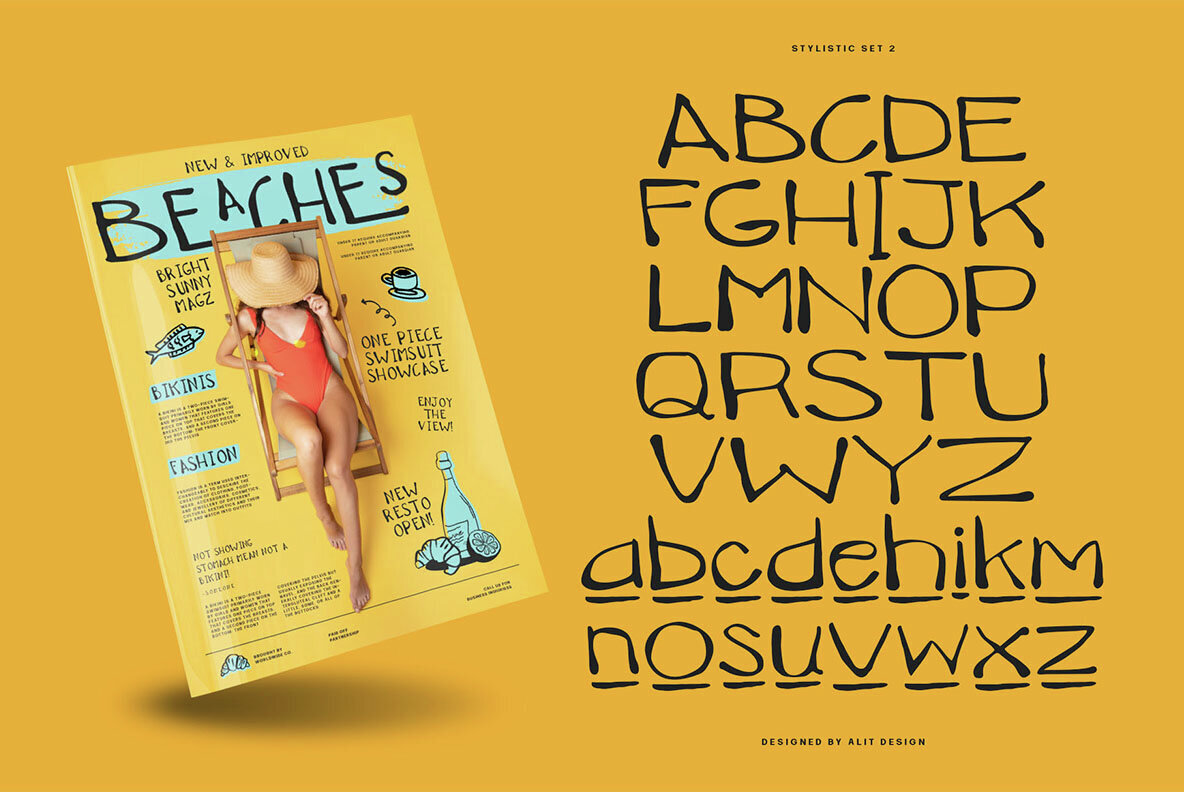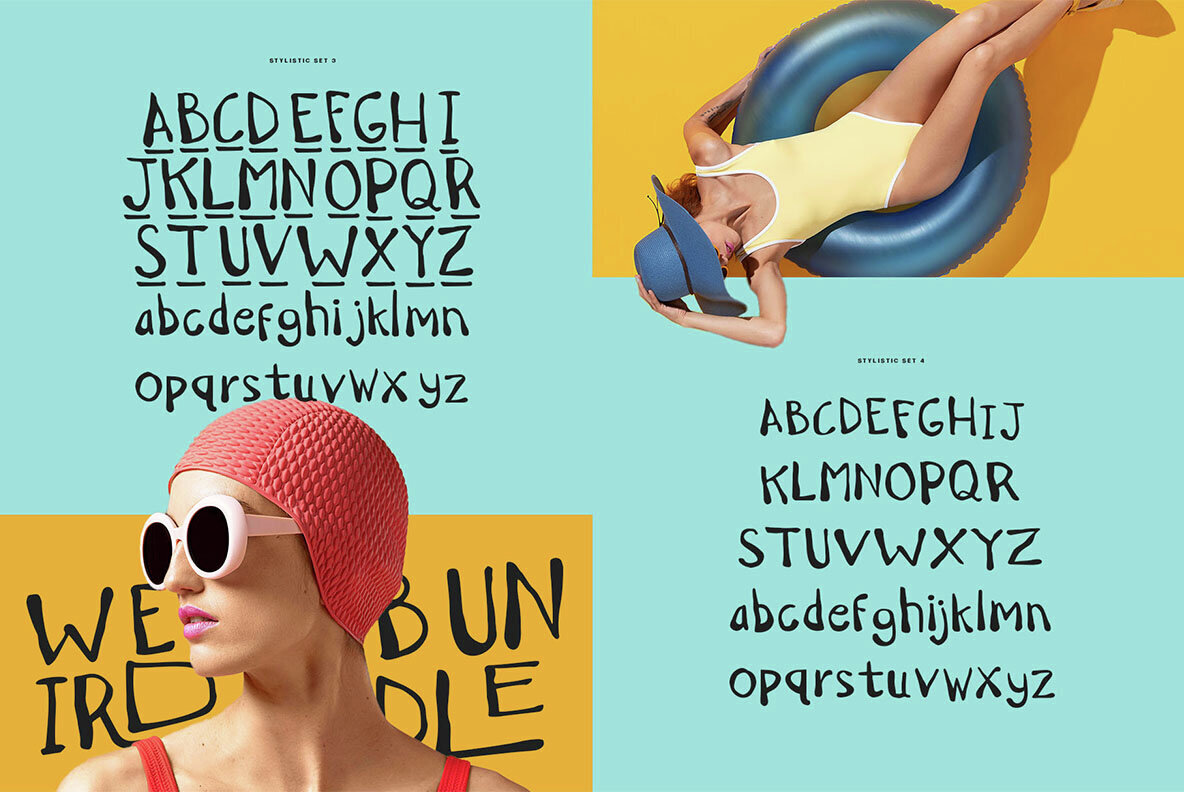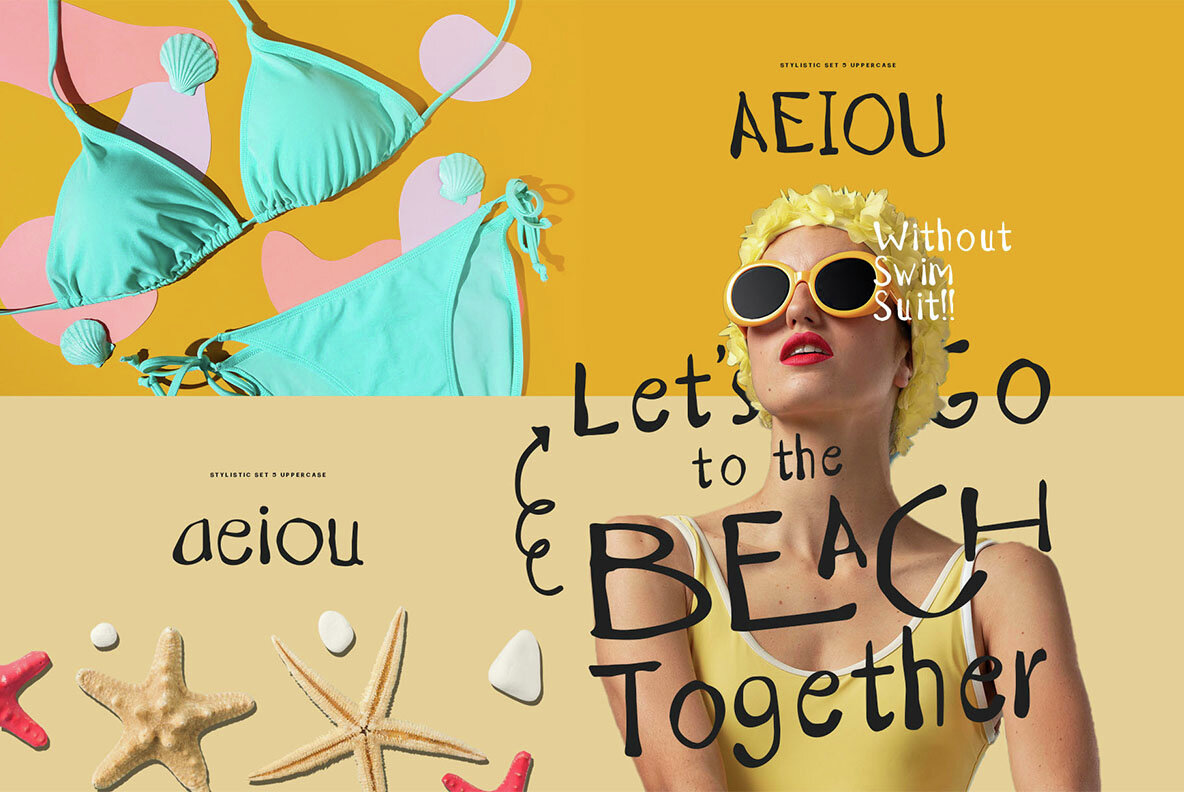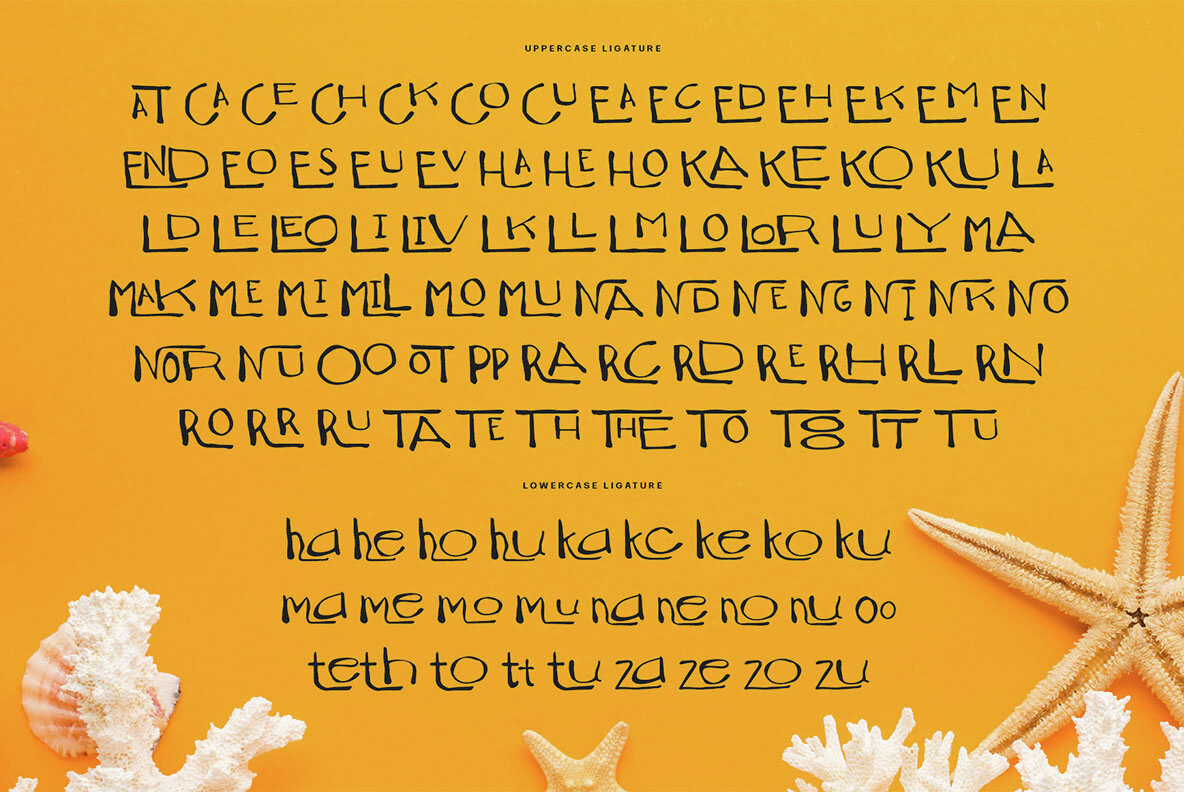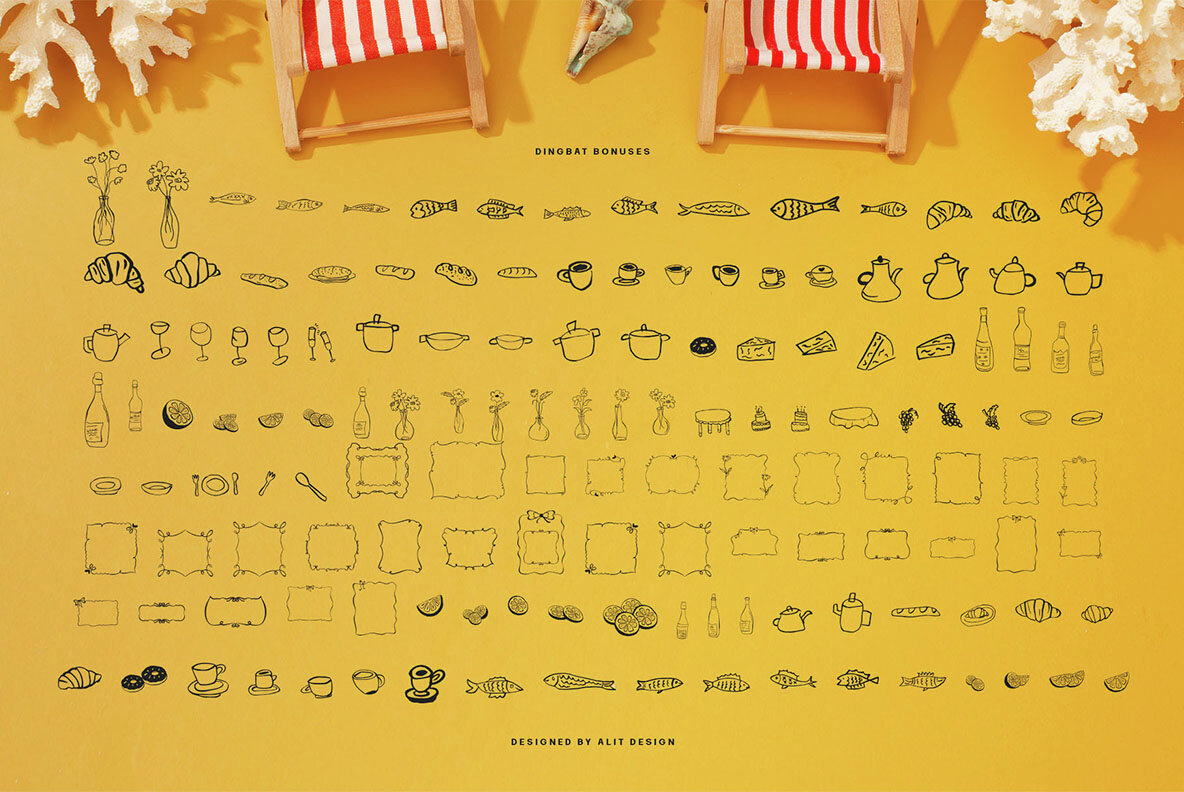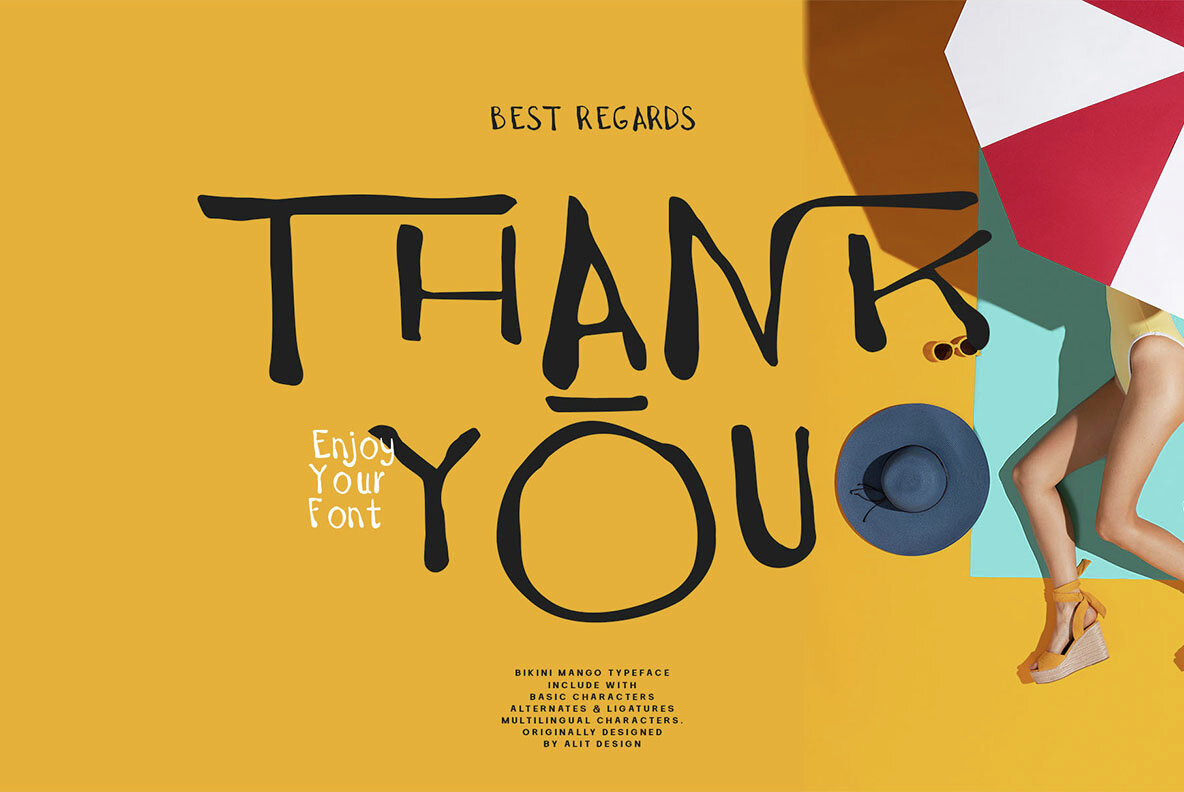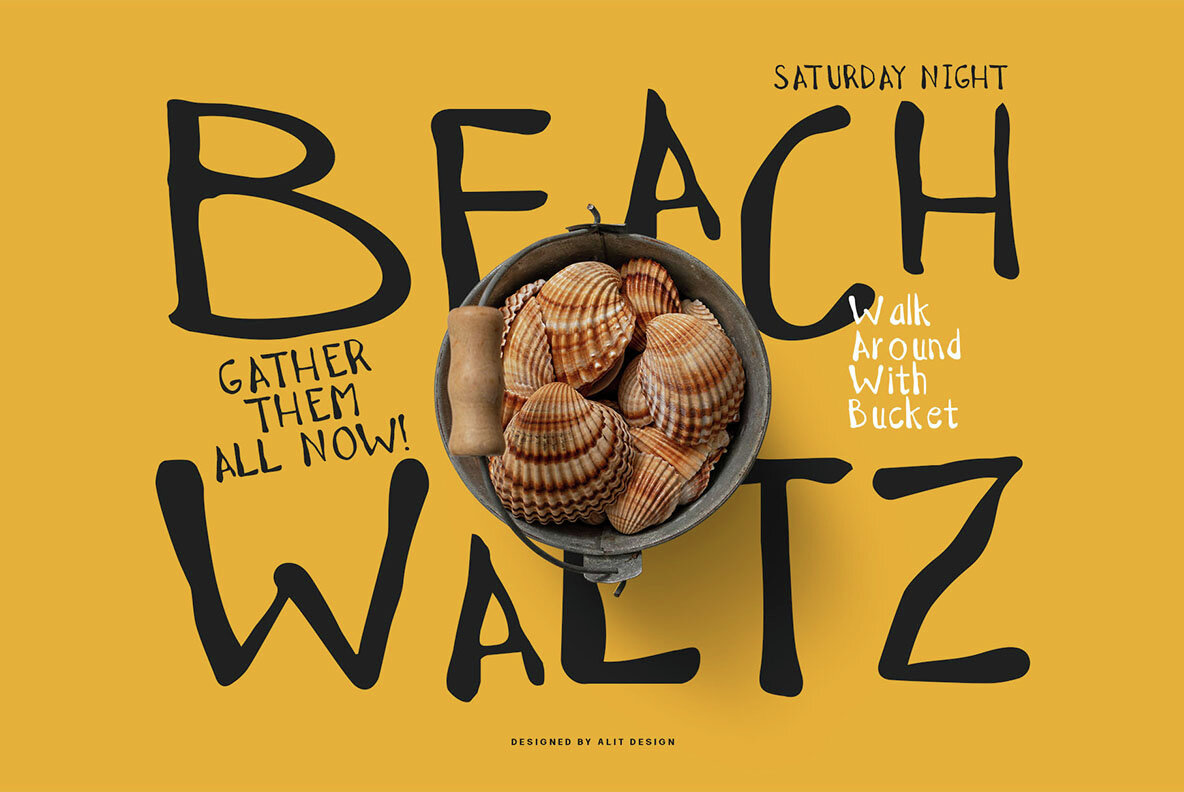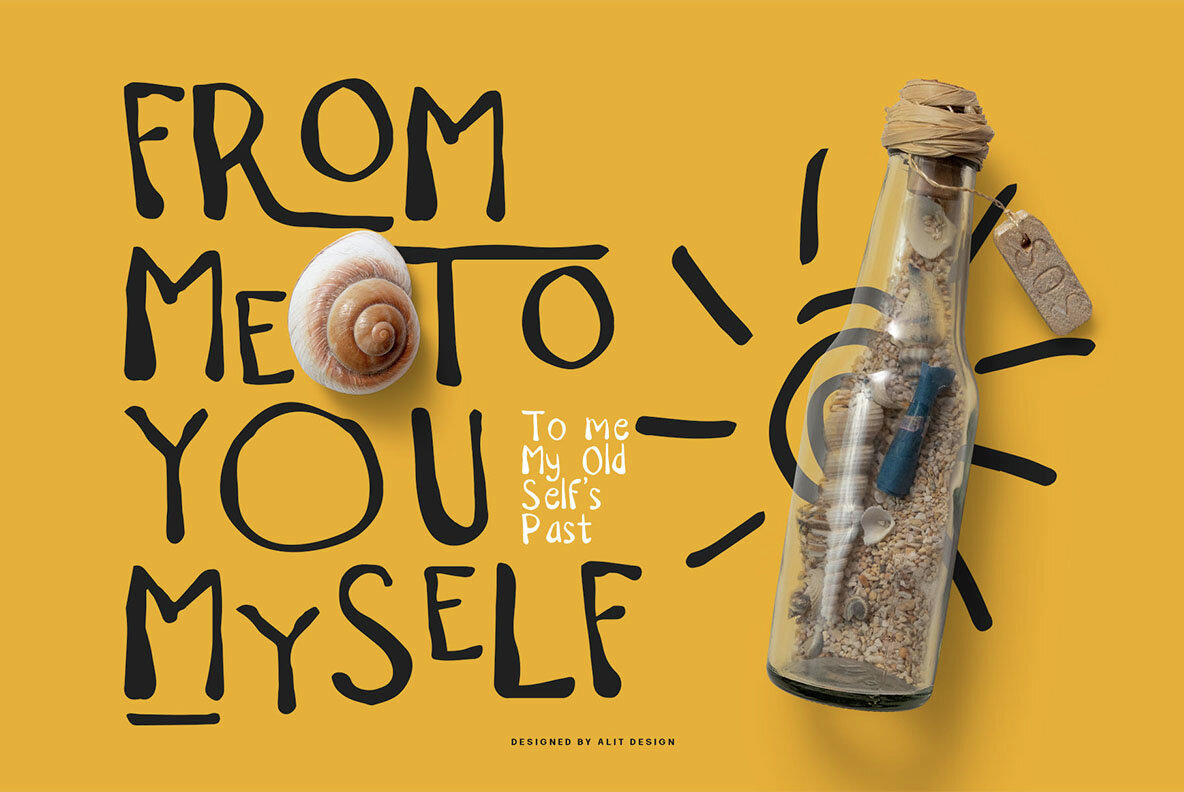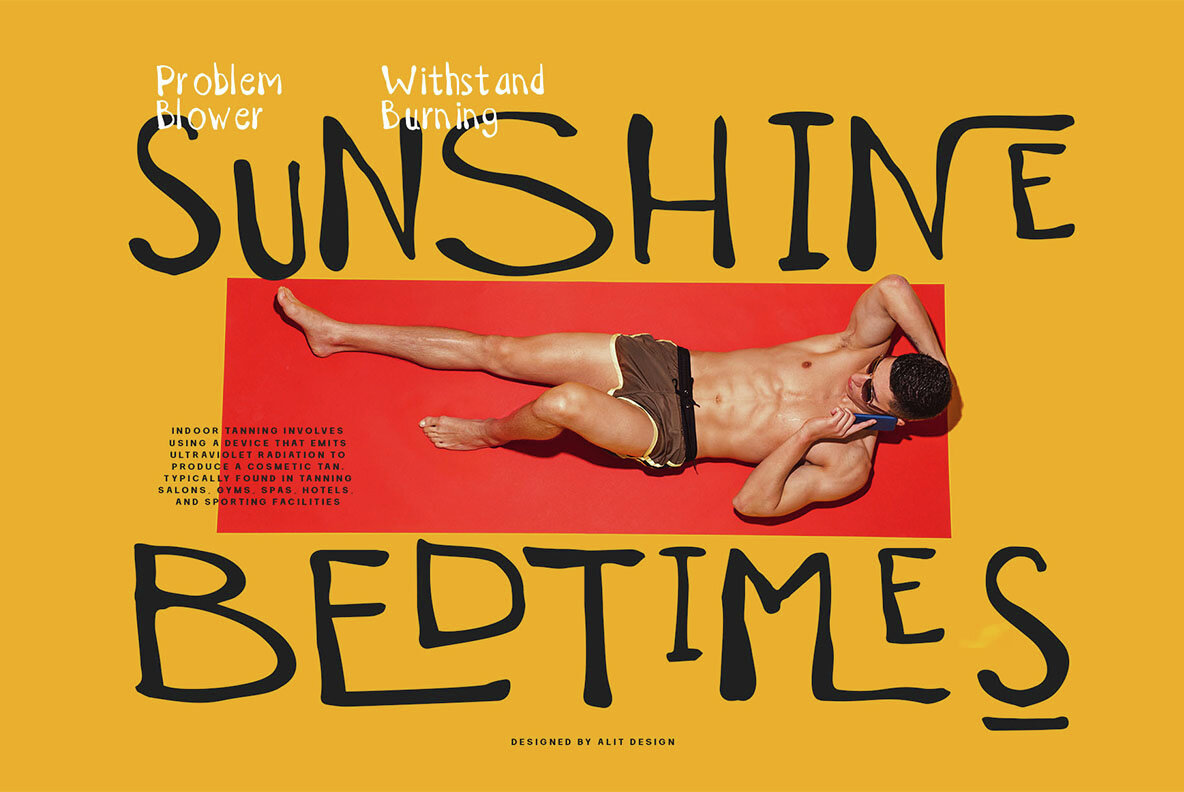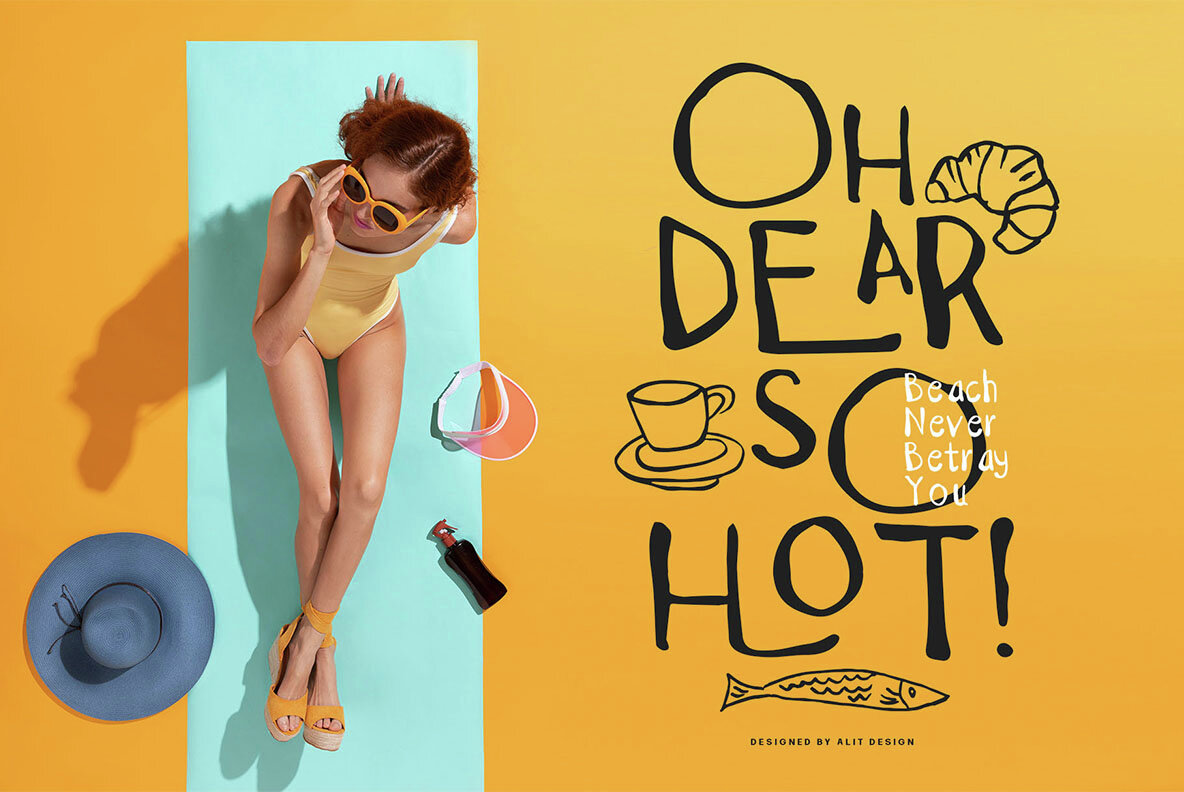
Bikini Mango Font
Introducing "Bikini Mango" - where playful meets professional in a whirlwind of handwritten charm! Dive into a world where each stroke is infused with the carefree spirit of a tropical paradise and the sophistication of fine calligraphy. With 783 characters at your fingertips, including ligatures, alternatives, and PUA unicode, "Bikini Mango" ensures your creations stand out with a touch of artisanal flair. Say goodbye to mundane designs and hello to a font that dances across the page with effortless grace. But that's not all - accompany your text with a delightful dingbat family, featuring a host of naive and unique illustration characters. From whimsical beach scenes to fruity delights, these illustrations add a dash of personality to any project. Whether you're crafting wedding invitations, branding materials, or eye-catching social media posts, "Bikini Mango" is your passport to a world where every word is infused with the vibrancy of a sun-kissed adventure. Embrace the warmth of the tropics and let your creativity flourish with "Bikini Mango" today!